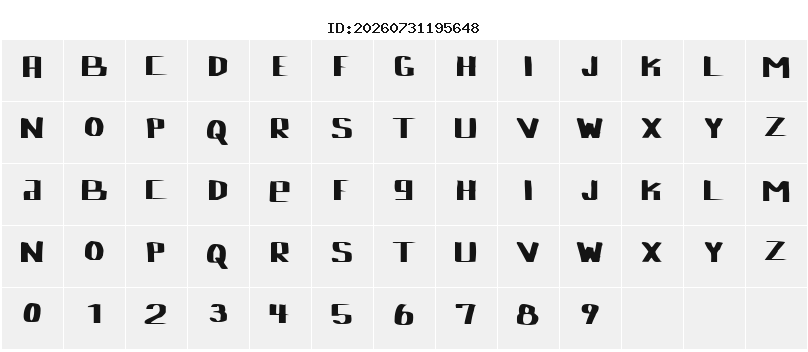
Lebowski Preview
• Font Name: Lebowski
About Lebowski.ttf
Lebowski.ttf is a modern, elegant sans-serif font designed for ultimate readability and visual harmony. Perfect for branding, headlines, web design, and print materials.